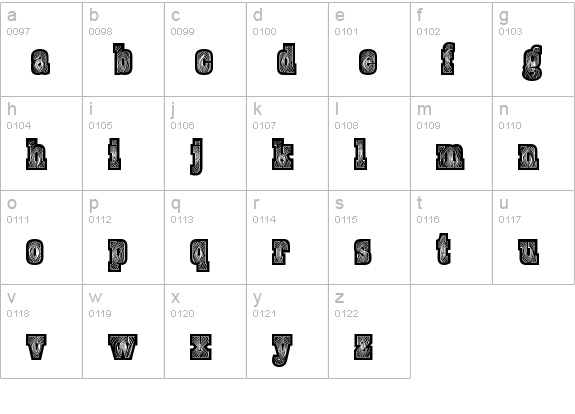
BurrisBlack Font Details
BurrisBlack font is a modern and elegant typeface that exudes sophistication and style. With its bold and sleek design, this font is perfect for creating eye-catching headlines, titles, and branding materials. The BurrisBlack font features strong, clean lines that make it easy to read and stand out on any project. Best of all, BurrisBlack font is free to download at FontsMarket.com, making it accessible to designers and creatives looking to add a touch of class to their work without breaking the bank. Whether you're working on a website, logo, or print design, BurrisBlack font is sure to make a bold statement and leave a lasting impression. Download it today and elevate your designs with this timeless and versatile typeface.